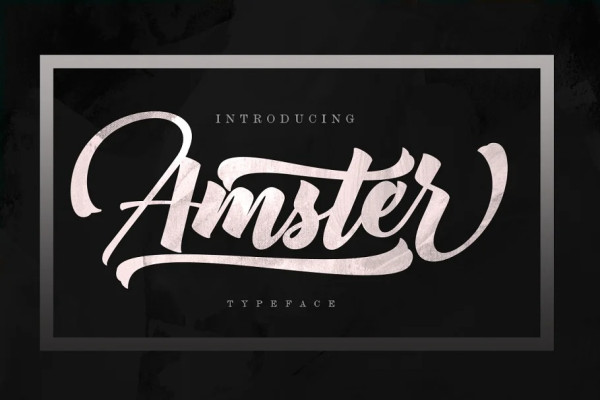
Amster Typeface
Amster Typeface, is a font bold, so, brush script that is beautiful and unique, it is a model of modern calligraphy typefaces, in combination with a calligraphy writing style.